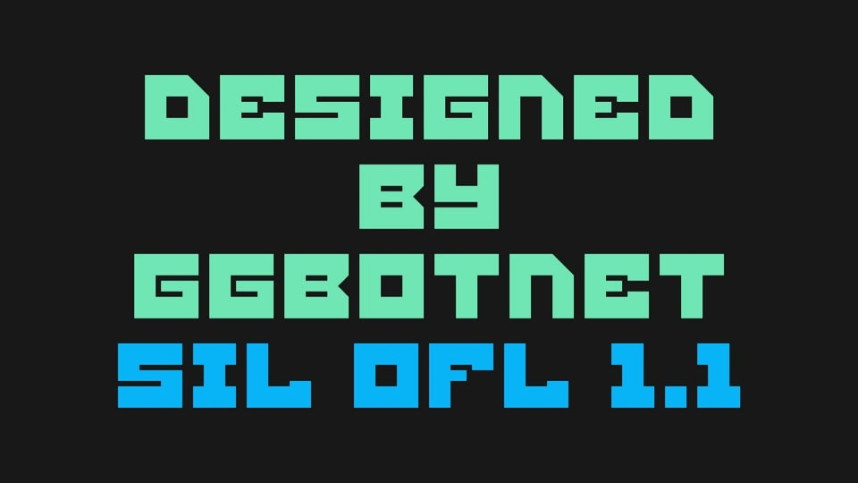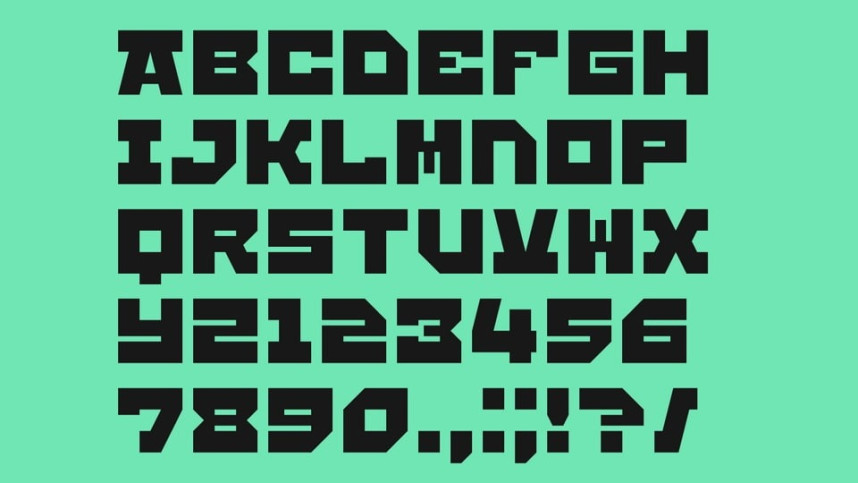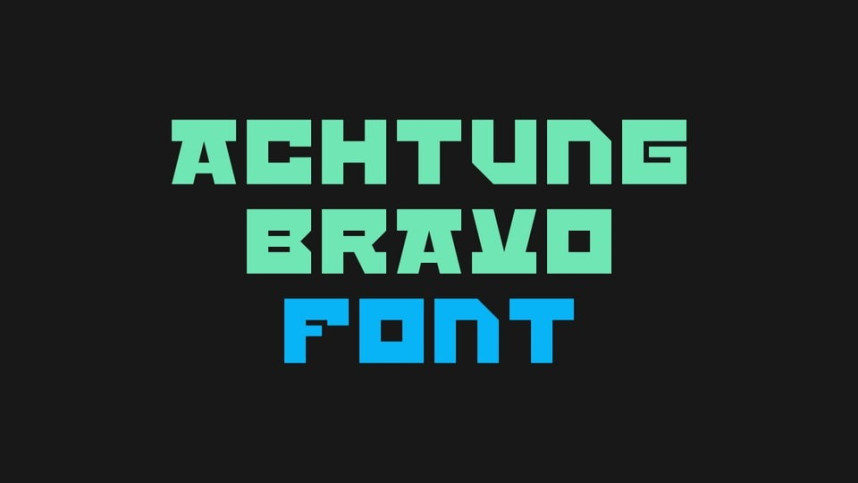
Achtung Bravo Font
Achtung Bravo Font is a bold, geometric display typeface that demands attention with its powerful structure and angular forms. Inspired by military stencils, sci-fi alphabets, and retro-futuristic design, its heavyweight presence and sharp-cut edges give it a commanding, industrial feel.
The typeface combines quirky shapes with rigid symmetry, making it perfect for impactful headlines, gaming graphics, posters, or branding that needs to shout without compromise.
Whether you’re crafting a rebellious logotype or building a visual identity with attitude, Achtung Bravo brings fearless energy to any design.